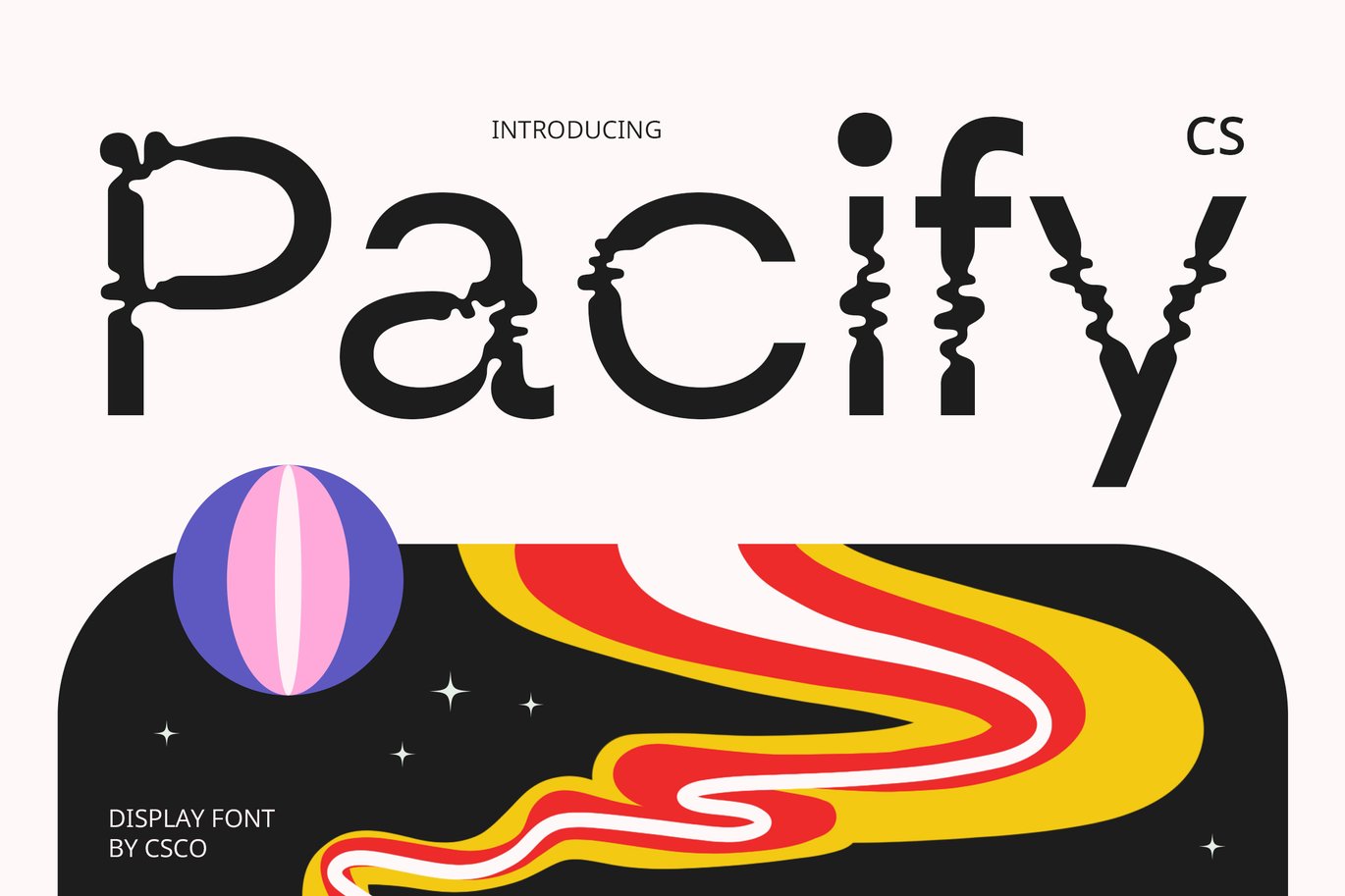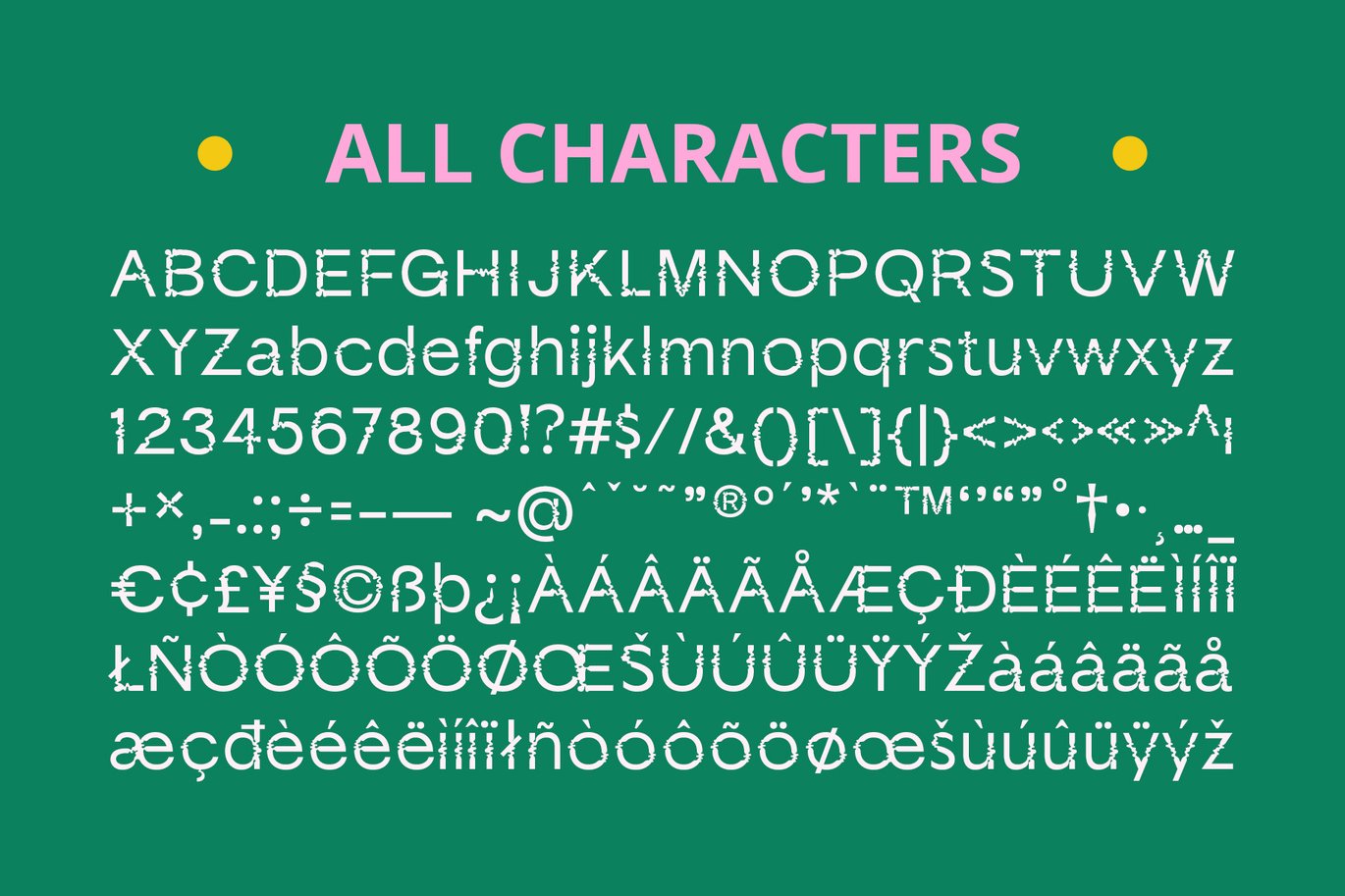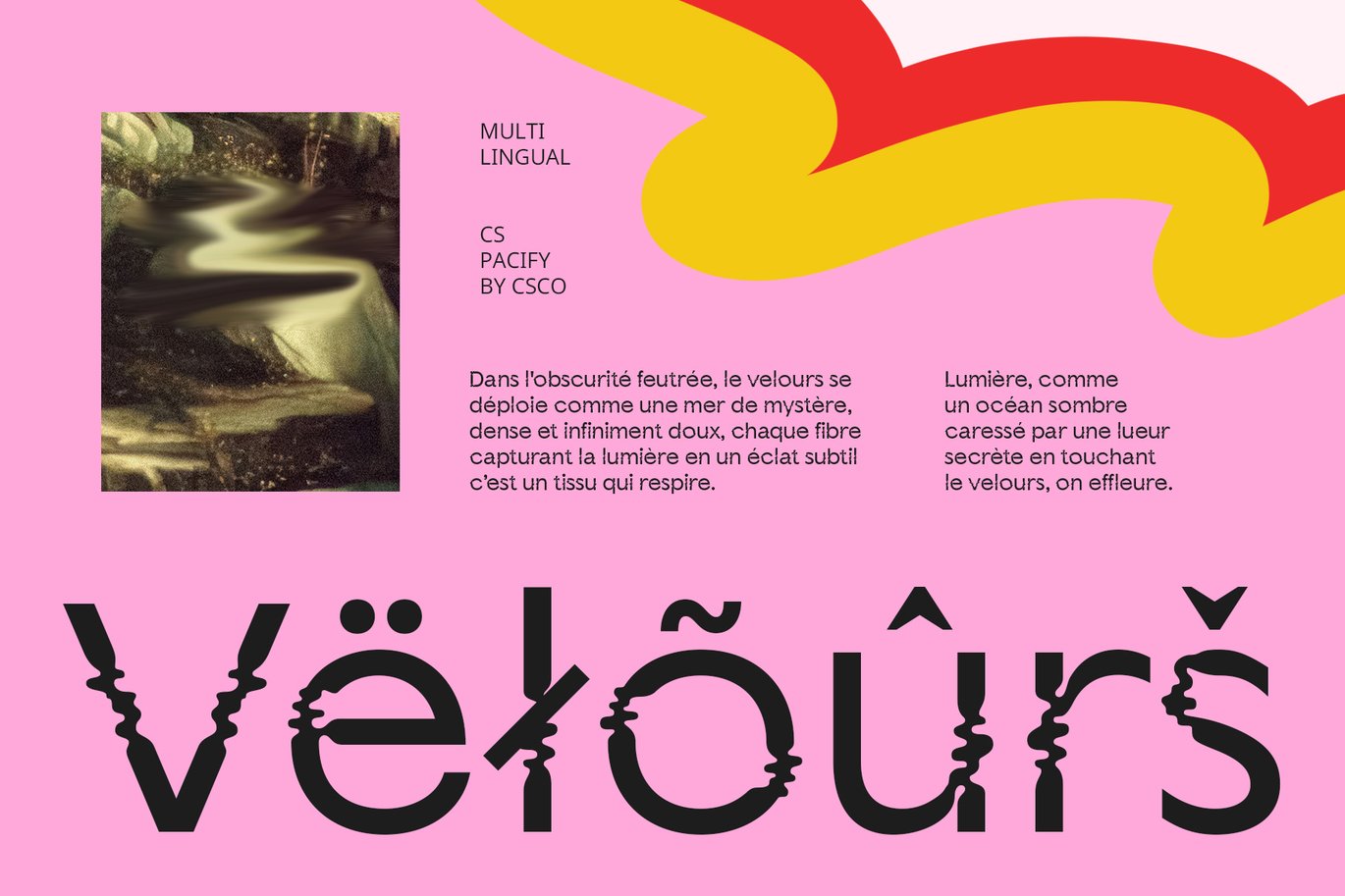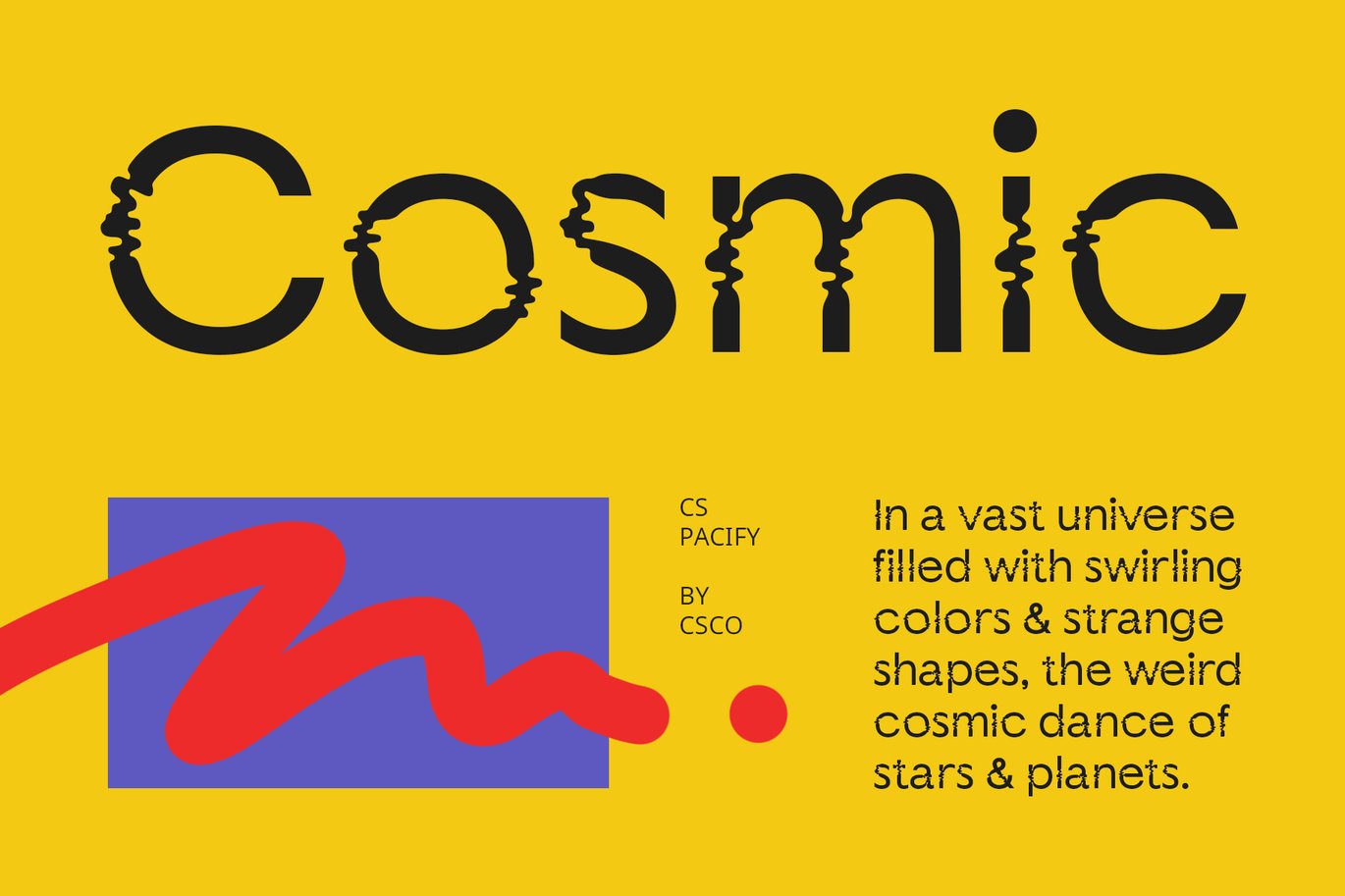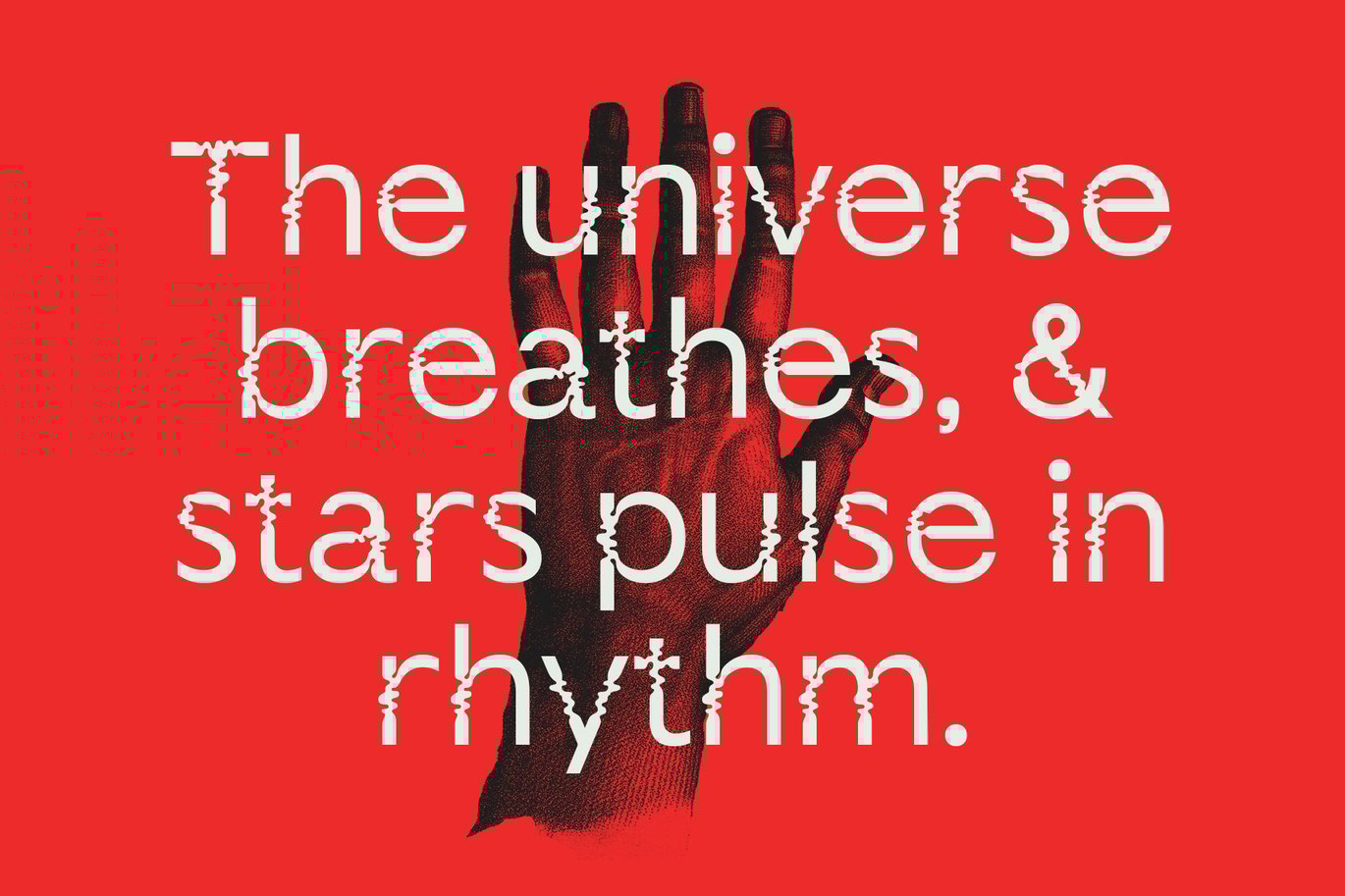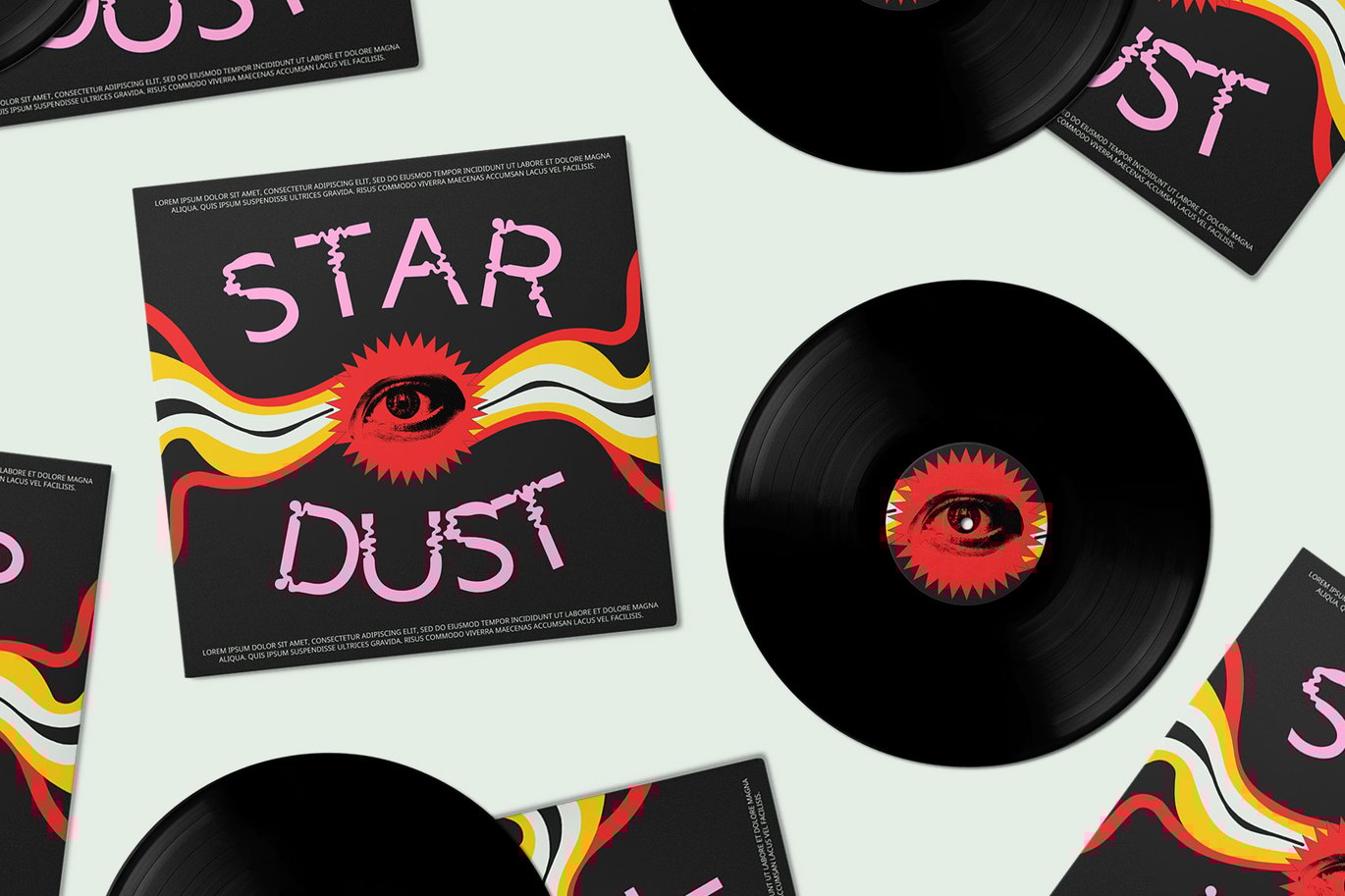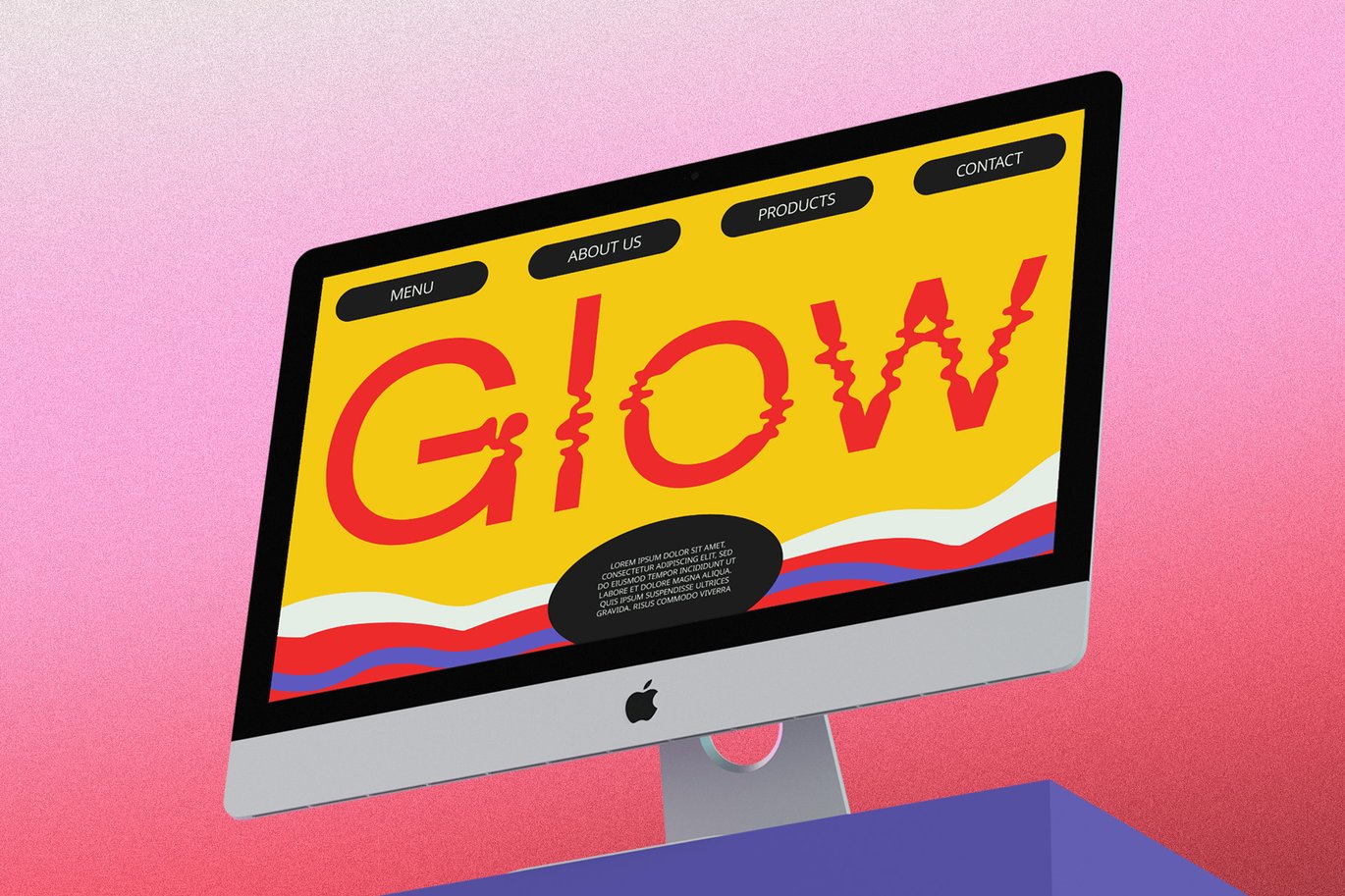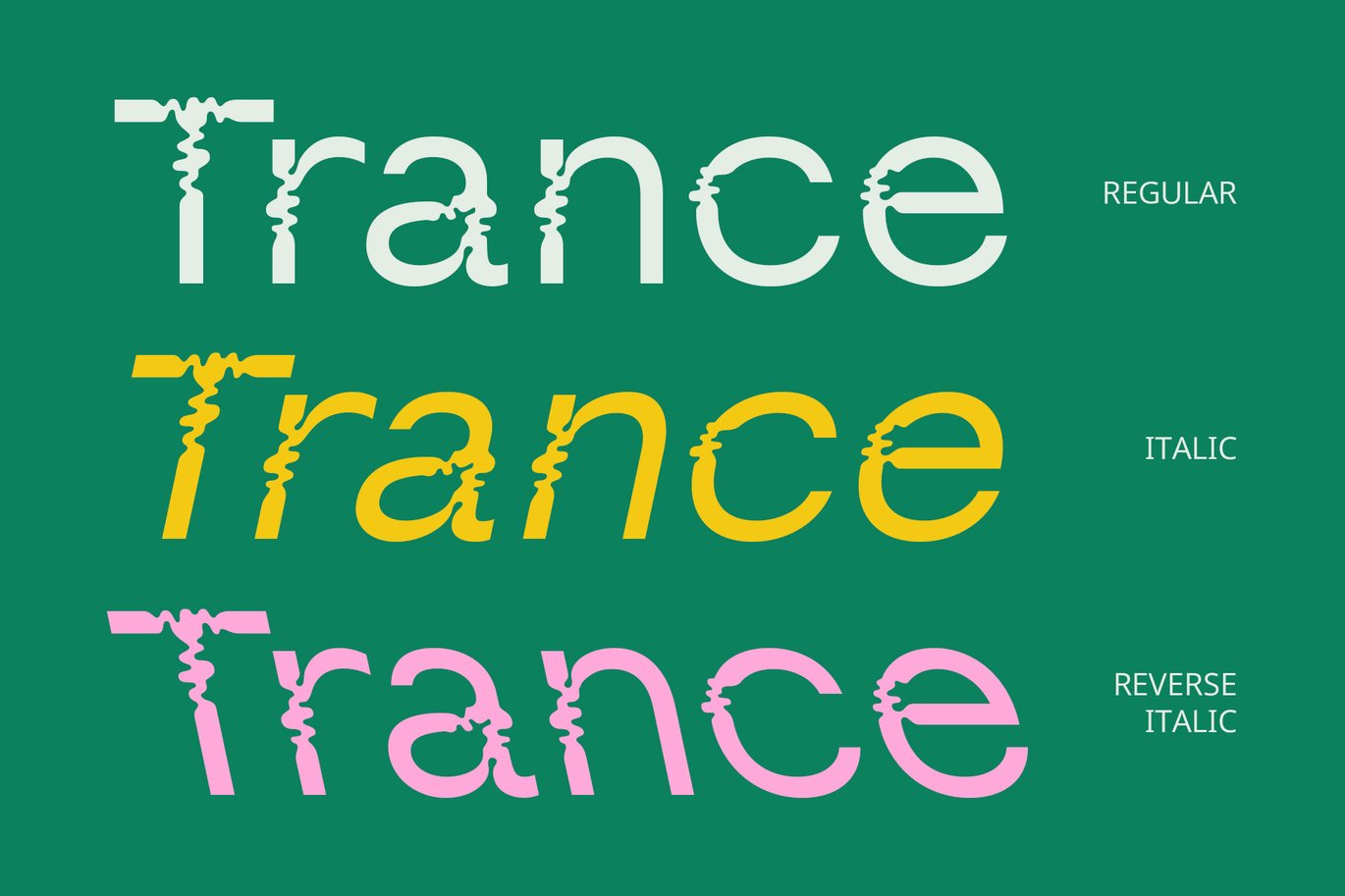
Pacify – Psychedelic Font
CS Pacify – Psychedelic Font: A Vibrant Twist on Modern Design
Funky Sans Serif with Psychedelic Flair
CS Pacify is a captivating sans serif display font that brings the psychedelic era into the modern age with playful, irregular, and fluid letterforms. Its unique, curving shapes exude a cheerful and funky vibe, perfect for projects that aim to stand out and radiate creative energy. This font is ideal for music event posters, branding with an artistic twist, and any design that seeks to showcase bold originality.
Playful, Curved Letterforms for a Dynamic Look
With its rounded, flowing shapes and distinctive rhythm, CS Pacify is designed to capture attention with a free-spirited, dynamic style. The playful irregularities within each letter add movement and visual interest, creating a sense of freedom that enhances experimental designs. Whether on album covers, festival branding, or art-inspired layouts, CS Pacify makes a statement.
Perfect for Creative and Eye-Catching Projects
CS Pacify is the ultimate choice for designs that want to make a memorable impression. Its lively, psychedelic aesthetic is suited to vibrant, eye-catching projects where boldness and creativity are essential. From posters and apparel to digital artwork, this font adds an expressive, artistic touch that invites viewers into a world of imagination.